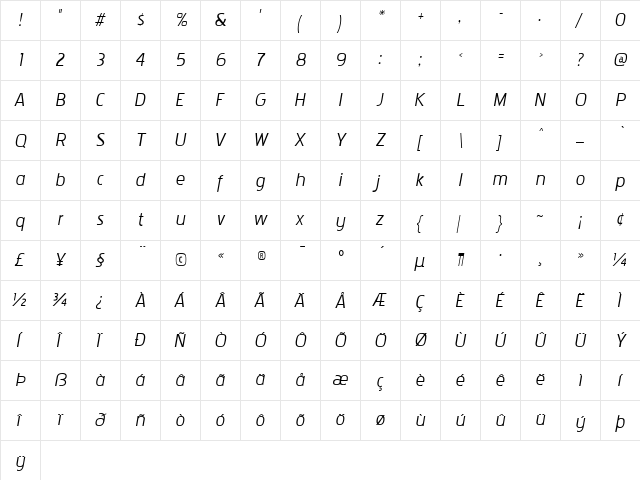
Pakenham Xp Italic
Design Context for Pakenham Xp Typeface
Pakenham Xp is a composed and adaptable typeface that performs quietly and consistently across a wide range of design contexts. Its italic angle brings a sense of urgency and motion to the letterforms.
Pro Tip: Use Pakenham Xp for emphasis, pull quotes, and subheadings where its slanted energy can add rhythm to the layout.